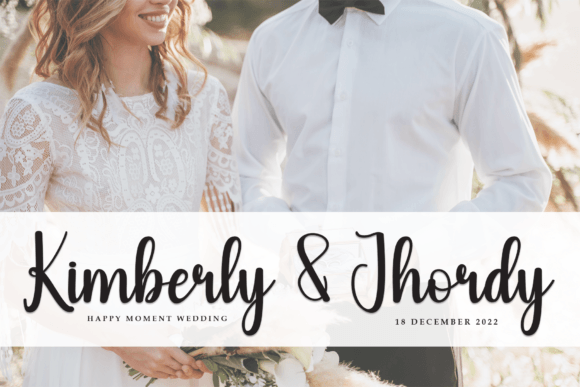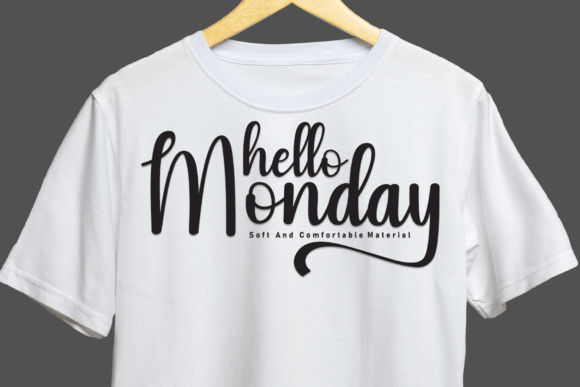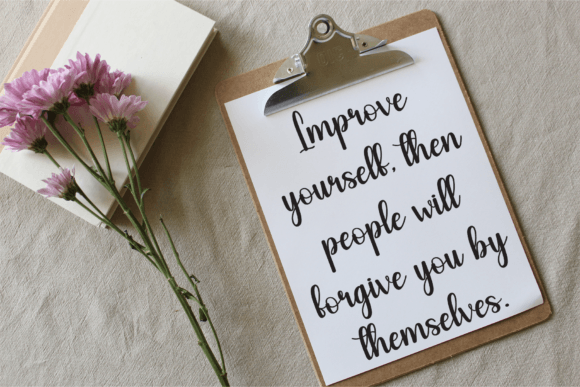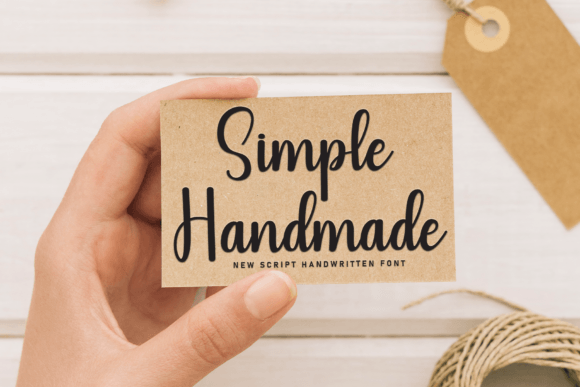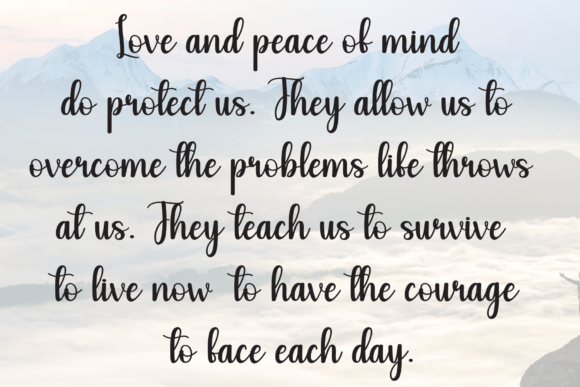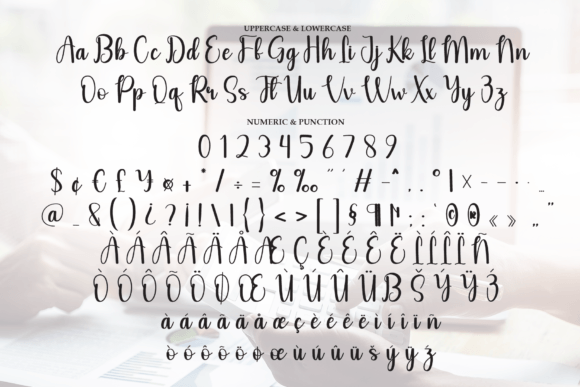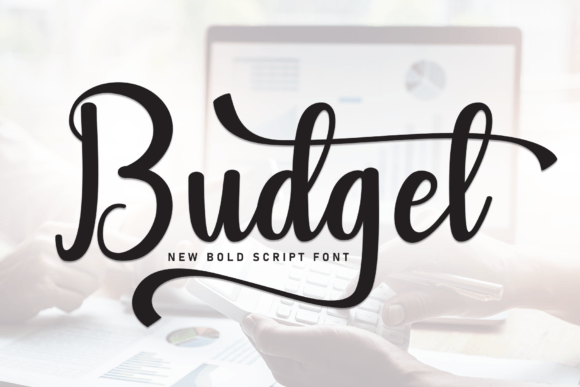
Introducing Budget Font: The Sweet and Friendly Handwritten Font for Your Design Needs
Are you a designer or crafter looking for a font that can add a touch of warmth and personality to your designs? Look no further than Budget Font, a sweet and friendly handwritten font that’s perfect for a variety of projects. In this article, we’ll take a closer look at Budget Font, its features, and how you can use it to elevate your designs.
What is Budget Font?
Budget Font is a fresh and cute handwritten font that’s ideal for writing wedding invitations, cards, or any other design that might need a fun touch. Its sweet and friendly style makes it perfect for designers and crafters who want to add a personal touch to their work. Whether you’re creating a wedding invitation, a greeting card, or a social media graphic, Budget Font is sure to bring a smile to your audience’s face.
Key Features of Budget Font
- Handwritten style: Budget Font has a beautiful, handwritten style that’s perfect for adding a personal touch to your designs.
- Fresh and cute: This font is incredibly fresh and cute, making it ideal for designs that need a fun and playful touch.
- Versatile: Budget Font can be used for a variety of projects, including wedding invitations, cards, social media graphics, and more.
- Easy to read: Despite its handwritten style, Budget Font is incredibly easy to read, making it perfect for designs that need to communicate a message.
How to Use Budget Font in Your Designs
Budget Font is incredibly easy to use and can be incorporated into your designs in a variety of ways. Here are a few ideas to get you started:
- Wedding invitations: Budget Font is perfect for wedding invitations, adding a touch of warmth and personality to your design.
- Greeting cards: This font is also great for greeting cards, making them more personal and special.
- Social media graphics: Budget Font can be used to create fun and engaging social media graphics that are sure to grab your audience’s attention.
- Branding: This font can also be used as part of your branding, adding a personal touch to your logo, website, or marketing materials.
Tips for Getting the Most Out of Budget Font
Here are a few tips for getting the most out of Budget Font:
- Use it with contrasting colors: Budget Font looks best when paired with contrasting colors that make it stand out.
- Experiment with different sizes: Don’t be afraid to experiment with different sizes to see what works best for your design.
- Pair it with other fonts: Budget Font can be paired with other fonts to create a unique and interesting look.
Budget Font is a sweet and friendly handwritten font that’s perfect for designers and crafters who want to add a personal touch to their designs. Its fresh and cute style makes it ideal for a variety of projects, from wedding invitations to social media graphics. With its ease of use and versatility, Budget Font is sure to become a favorite in your design arsenal.